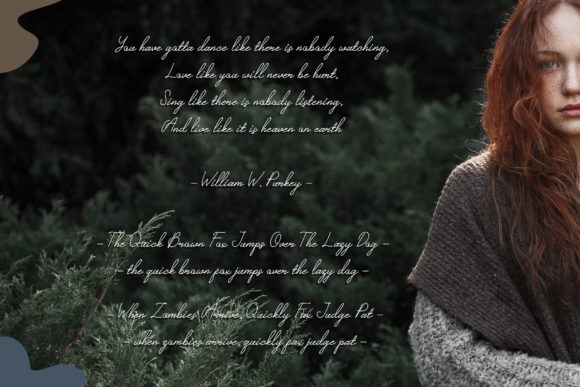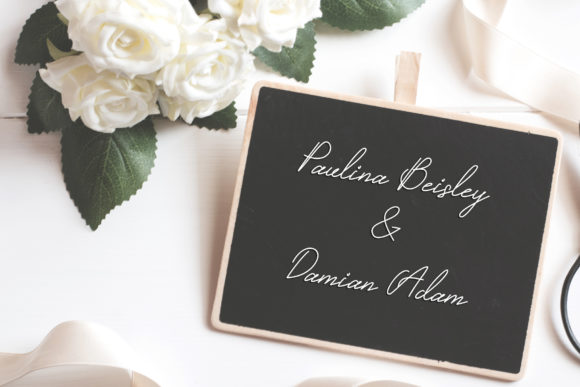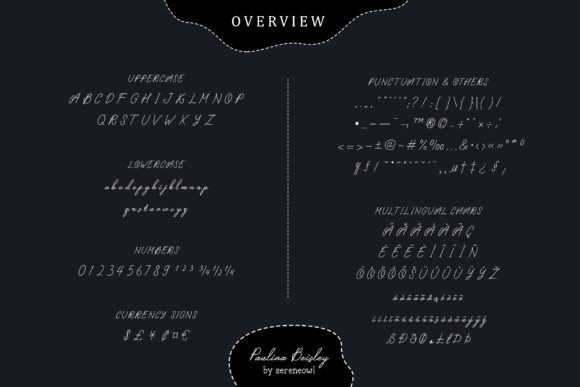
Introduction to Paulina Beisley Font
Paulina Beisley is a modern handwritten font in a monoline script style.
It is a versatile, modern twist on classic cursive You can use this typeface for branding, youtube, social media, weddings, stationery, packaging, layout design, and advertising.
Key Features of Paulina Beisley Font